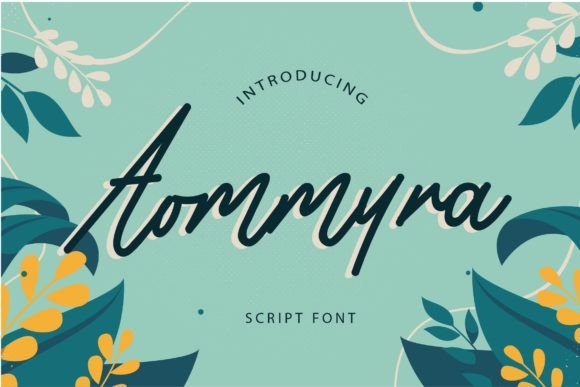
The Elusive Font: A Journey to Discover Aommyra
I’ll never forget the countless hours I spent searching for the perfect font for a client’s wedding invitation. The design had to be elegant, modern, and reflect the couple’s sophisticated style. As I scrolled through font after font, I couldn’t help but feel like I was stuck in a never-ending loop of sameness. That was until I stumbled upon Aommyra – a beautiful and refined script font that instantly caught my eye.
With its classy, elegant, and modern look, Aommyra quickly became my go-to font for a wide range of design projects, from logos and branding to social media posts and wedding designs. In this article, I’ll share my honest review of Aommyra, provide a practical guide on how to use it, and explore similar fonts that you might love.
An Honest Review of Aommyra
• 💫 Elegant and refined script font perfect for high-end designs
• 🎨 Versatile and can be used for a wide range of projects, from logos to social media posts
• 👍 Classy and modern look that will elevate your designs
While Aommyra is an amazing font, there are a few things to keep in mind:
• 🤔 Some users may find the font a bit too ornate for certain projects
• ⚠️ Not suitable for body text or long-form content due to its script nature
The Designer Inspiration Behind Aommyra
While I couldn’t find any information on the actual designer behind Aommyra, I like to imagine that it was created by a team of designers who wanted to craft a font that would make designers’ lives easier. Perhaps they were inspired by the elegance of calligraphy and the beauty of handwritten scripts. Whatever the inspiration, Aommyra has become a beloved font among designers and crafters alike.
A: PUA (Private Use Area) encoding is a way of encoding fonts that allows designers to access additional glyphs and swashes. This means that with Aommyra, you can easily access a wide range of alternative characters and decorative elements.